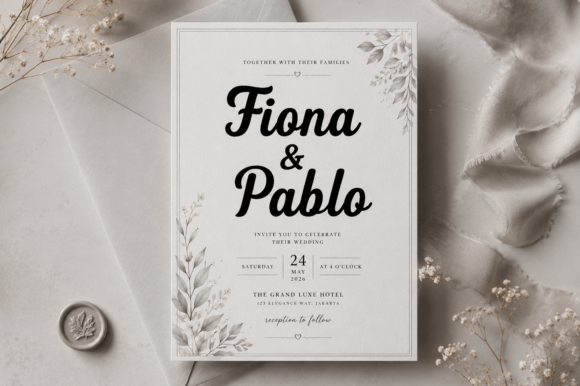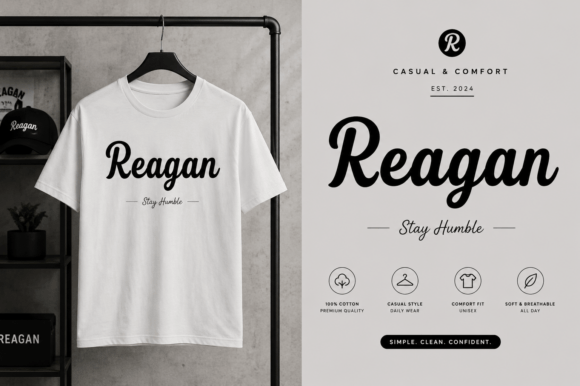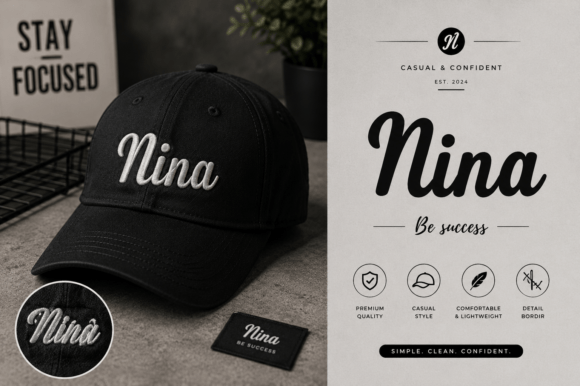
Introduction to Ladiesy Font
Have you ever stumbled upon a font that perfectly captures the essence of your creative vision? For designers, this moment of serendipity is a treasure trove of inspiration. It’s the moment when the perfect font speaks directly to your project’s personality, elevating it to new heights of style and sophistication.
This is exactly what happens when you discover the Ladiesy Font. With its striking balance of elegance and boldness, this contemporary script calligraphy font is an instant favorite among designers. Whether you’re working on a premium fashion brand, a romantic wedding stationery, or a beauty product packaging, Ladiesy Font is the perfect design resource to lend a sophisticated handwritten touch to your project.
Key Features of Ladiesy Font
- High-quality design resource for creative projects, suitable for various applications.
- Unique, creative design that can add a touch of elegance to any project.
- Perfect for use in graphic design, digital art, and other creative projects that require a high-quality font.
Honest Review: Ladiesy Font
I recently had the chance to work with the Ladiesy Font, and I must say it’s been a game-changer for my creative projects. This free download is a high-quality design resource that’s perfect for anyone looking to add a touch of elegance to their work.
- ✨ What works well: The Ladiesy Font is incredibly versatile, making it easy to use in a variety of creative projects. The transparent background is also a huge plus, allowing me to easily layer it over other design elements.
- ✨ The font itself is beautifully designed, with a delicate and feminine touch that’s perfect for wedding invitations, greeting cards, and other similar projects.
However, I did encounter a few limitations when working with the Ladiesy Font.
- ⚠️ The font may not be suitable for large-scale projects or those requiring a high level of customization, as it can be a bit limited in terms of style variations.
- ⚠️ The free version of the font may contain some minor issues, such as formatting problems or inconsistent spacing.
Overall, I’m really impressed with the Ladiesy Font, and I would definitely recommend it to anyone looking for a high-quality, free design resource for their creative project.
Ladiesy Font is a high quality design resource that can be used in various creative projects, such as:
– Blog posts
– Business cards
– Infographics
– Flyers
Tips for Getting the Most Out of Ladiesy Font
For the best results, use Ladiesy Font with a transparent background, especially when designing digital assets. This will ensure a clean and professional look. You can also experiment with different font sizes and colors to add visual interest to your design.